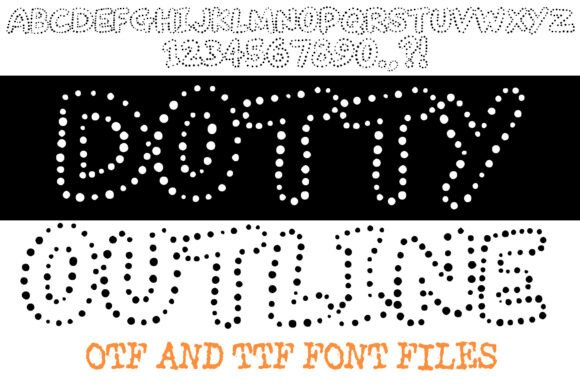
Dotty Outline Font: A Whimsical and Eye-Catching Decorative Typeface
The Dotty Outline font is a unique and captivating decorative typeface that has gained popularity for its playful and eye-catching design. Composed entirely of outlined dot patterns that trace the contours of each glyph, this font merges playful form with structural clarity, giving a sense of handcrafted design with a pop-art flair.
Design Characteristics
The Dotty Outline font is characterized by its unusual construction, where each character—uppercase, numbers, and punctuation—is defined by dotted strokes that echo lightness and creativity. The spacing of the dots is consistent enough to ensure legibility while preserving the illusion of visual rhythm and movement. This design approach makes it especially suitable for educational materials, children’s books, event posters, playful branding, and quirky digital designs.
Purpose-Built for Style over Body Text
The Dotty Outline font is designed primarily for visual impact, not for reading in paragraphs. This is a core trait of decorative fonts, which prioritize style and aesthetics over readability in long-form text. As such, this font is best suited for headlines, logos, labels, posters, or craft projects, where visual appeal is paramount.
Unconventional Form
The characters in the Dotty Outline font are constructed entirely from dots, forming outlines rather than solid shapes. This unique visual structure makes it highly stylized and sets it apart from more traditional typefaces. The use of dots to create the outline of each glyph gives the font a light and airy feel, which can add a touch of playfulness and whimsy to any design.
Display-Only Usage
Given its decorative nature, the Dotty Outline font is best used for display purposes only. It’s not designed for long-form readability, which is another hallmark of decorative fonts. Instead, it’s perfect for grabbing attention and making a statement in headlines, titles, and short phrases.
Thematic and Novelty Feel
The Dotty Outline font has a playful, hand-drawn aesthetic that leans into novelty or theme-based design. This is common in decorative typefaces, which often aim to evoke a particular mood or atmosphere. The font’s charm lies in its unusual construction, giving typographic texture without using color or shading.
Best Use Cases
The Dotty Outline font is versatile and can be used in a variety of contexts, including:
- Educational materials: The font’s playful design makes it perfect for textbooks, workbooks, and other educational resources.
- Children’s books: The font’s whimsical nature makes it ideal for picture books, storybooks, and other children’s literature.
- Event posters: The font’s eye-catching design makes it perfect for promoting concerts, festivals, and other events.
- Playful branding: The font’s unique style makes it suitable for brands that want to stand out and make a statement.
- Quirky digital designs: The font’s playful nature makes it perfect for social media graphics, blog headers, and other digital designs.
Tips for Using the Dotty Outline Font
To get the most out of the Dotty Outline font, follow these tips:
- Use it sparingly: Given its decorative nature, it’s best to use the font sparingly to avoid overwhelming the reader.
- Pair it with a simple font: Pair the Dotty Outline font with a simple font to create visual contrast and make your design more readable.
- Experiment with colors: The font’s outlined design makes it perfect for experimenting with different colors and textures.
- Consider the context: Make sure the font is suitable for the context in which it will be used. For example, it may not be suitable for formal or professional designs.
The Dotty Outline font is a unique and captivating decorative typeface that can add a touch of playfulness and whimsy to any design. Its unusual construction, characterized by outlined dot patterns, gives it a light and airy feel that’s perfect for grabbing attention and making a statement. While it’s not suitable for long-form readability, it’s perfect for display purposes, such as headlines, logos, and posters. By following the tips outlined above, you can get the most out of this font and create visually appealing designs that stand out from the crowd.